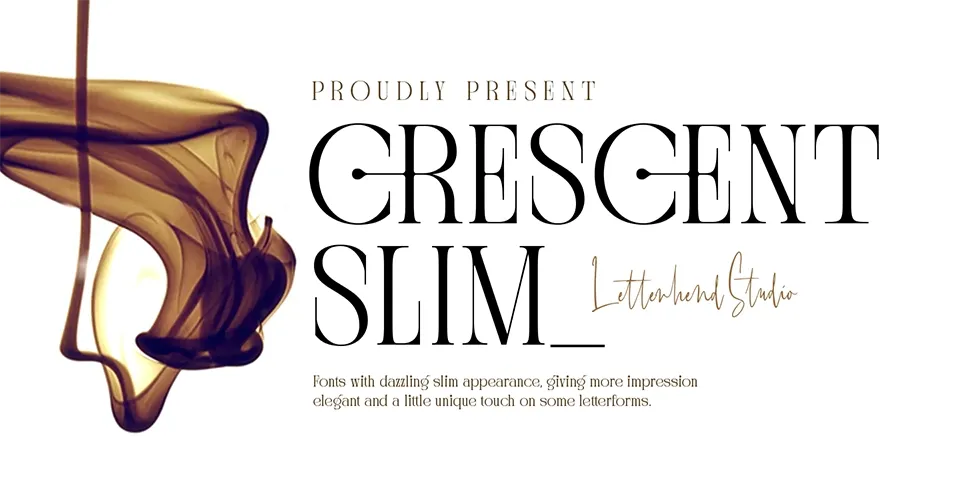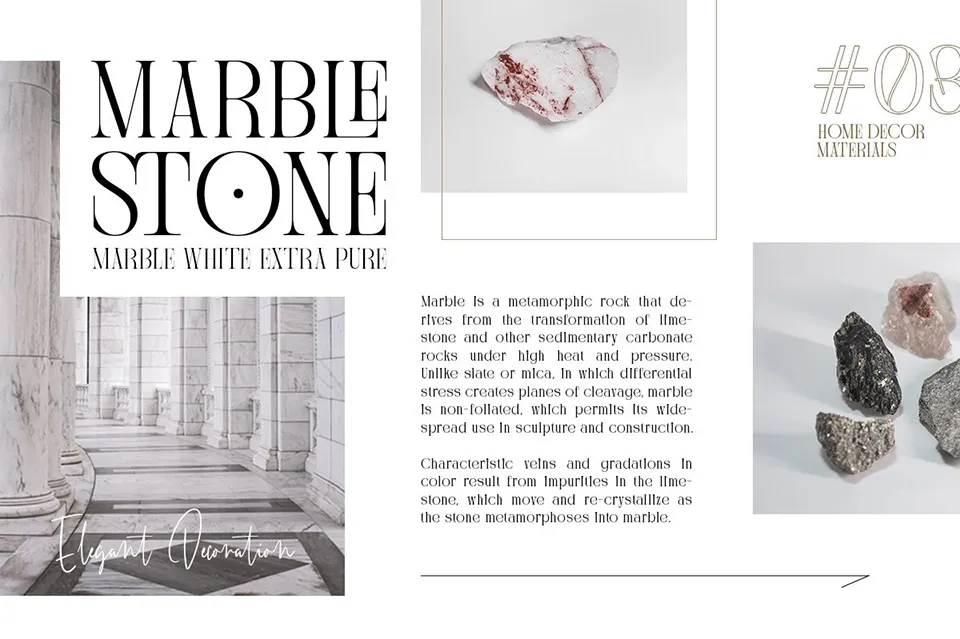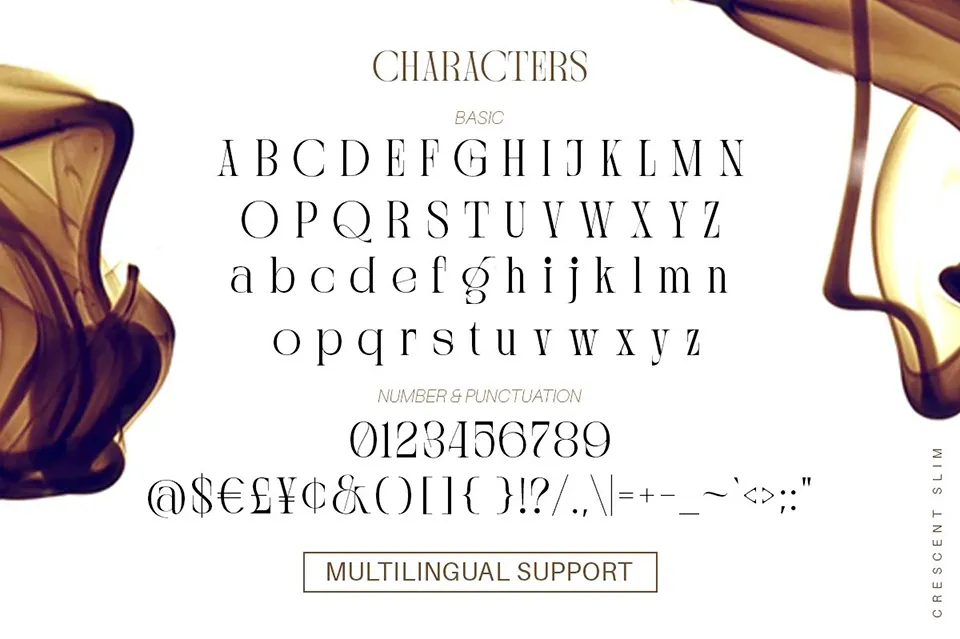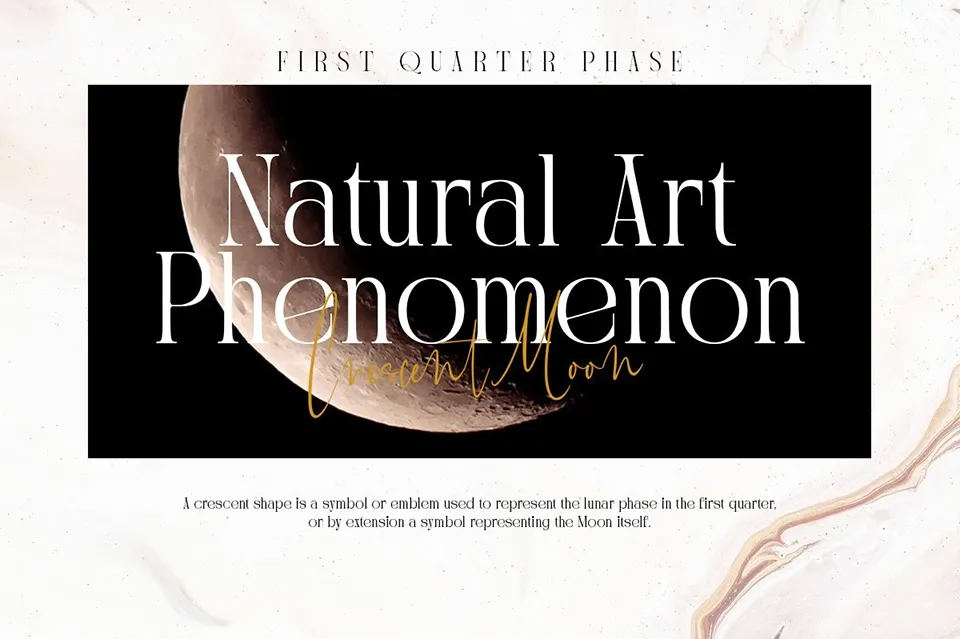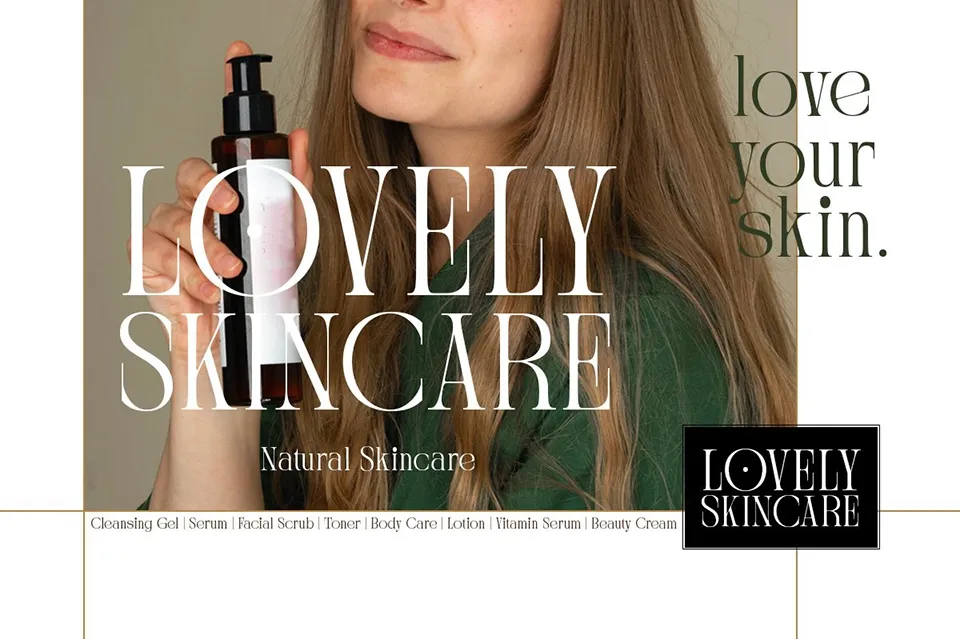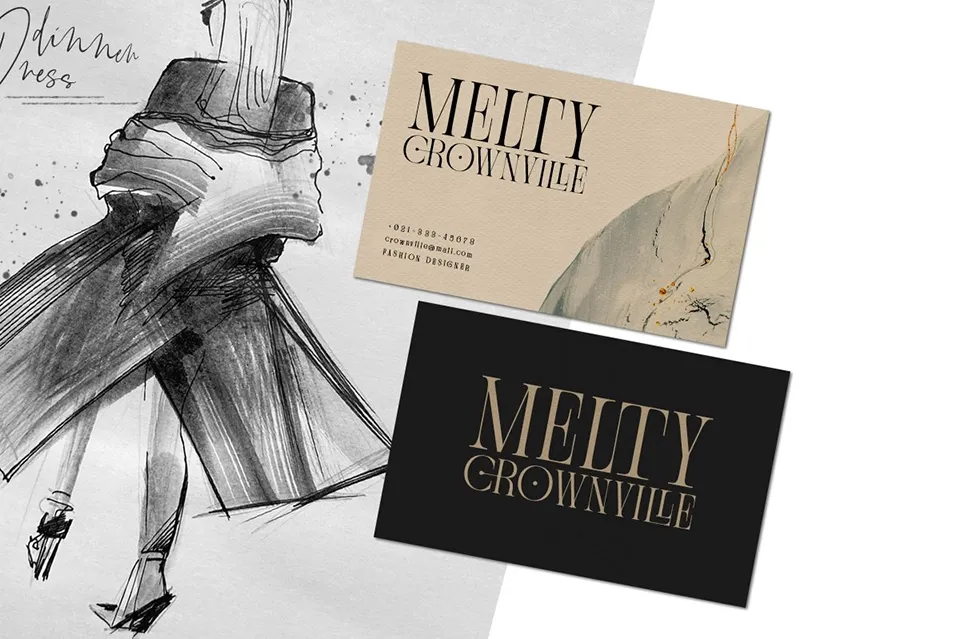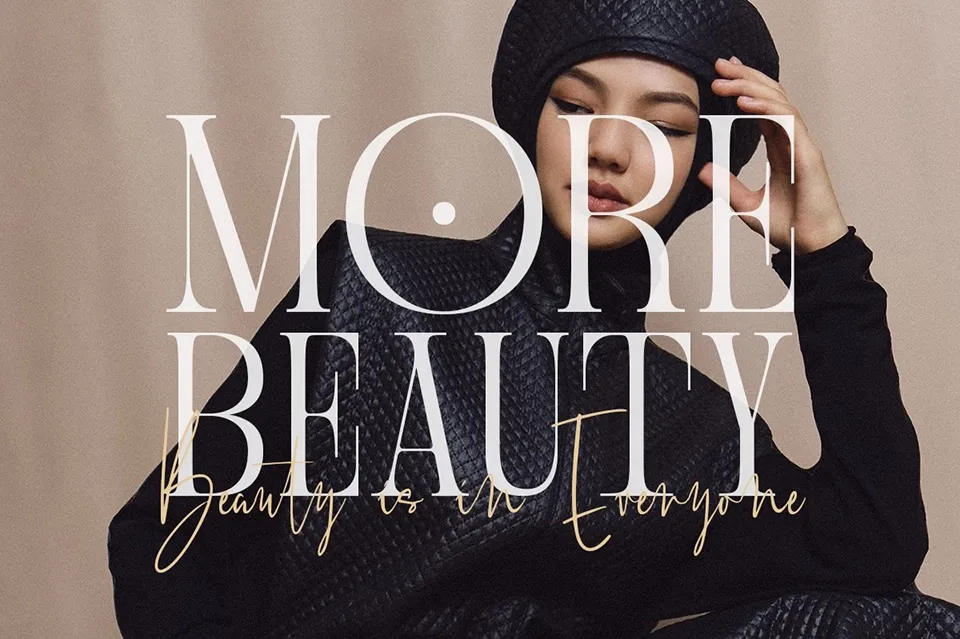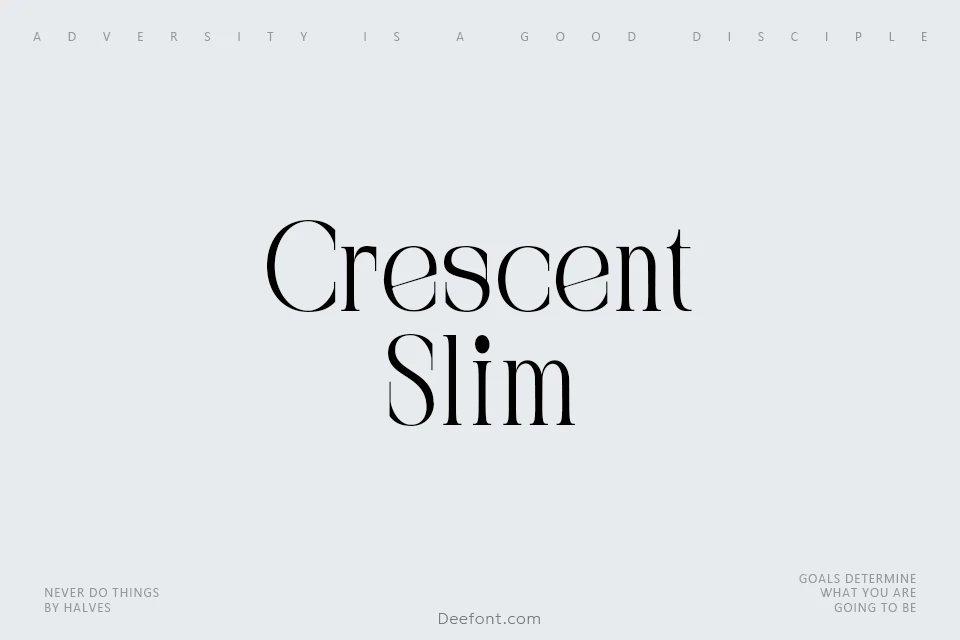
Crescent Slim Font
Crescent Slim Font, a sophisticated and elegant typeface with a dazzling slim appearance. This modern serif font is designed to bring a refined and stylish touch to your projects, combining timeless beauty with a unique flair. With its sleek proportions and subtle details, Crescent Slim is perfect for branding, editorial layouts, logos, invitations, and other creative designs that require a luxurious and polished look. The font’s delicate yet bold aesthetic ensures versatility, making it ideal for both minimalistic and elaborate compositions. Elevate your designs with Crescent Slim Font and create visuals that captivate with their elegance and charm.